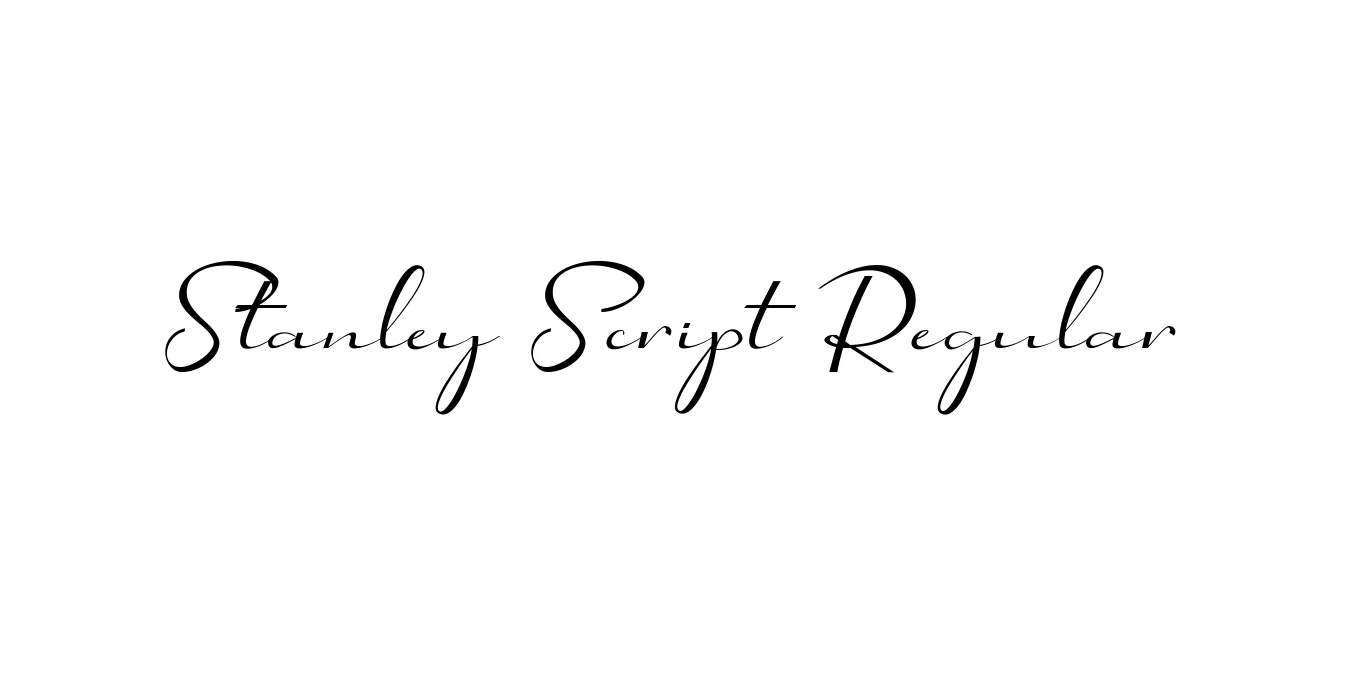
Stanley Script Regular
Designed by Sronstudio
Stanley Script Regular is a sophisticated and fluid handwritten typeface that captures the essence of modern calligraphy. Developed with a focus on natural rhythm and elegant strokes, this font offers a high-end signature feel that is both professional and personal. Its organic lines provide a sense of authenticity, making it an ideal choice for creators looking to add a bespoke touch to their digital and print projects.
Technical features of this font include a comprehensive set of ligatures and swashes, allowing for seamless transitions between characters. It is frequently utilized in high-fashion branding, editorial design, and wedding stationery. Whether you are designing a luxury logo or a heartfelt greeting card, Stanley Script Regular provides the versatility and aesthetic appeal required for contemporary design standards.
Stanley Script Regular Best Uses
Perfect for romantic invitations, save-the-dates, and table cards.
Ideal for creating unique, signature-style logos for photographers and boutiques.
Great for stylized quotes and personal storytelling on platforms like Instagram.
Adds a personalized and high-end feel to product labels and gift boxes.